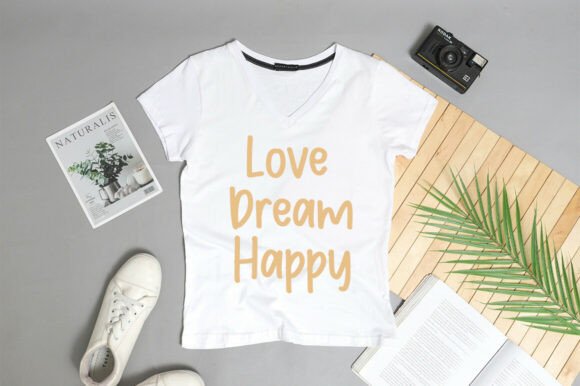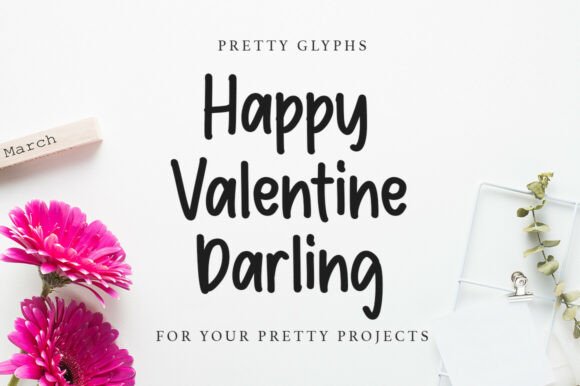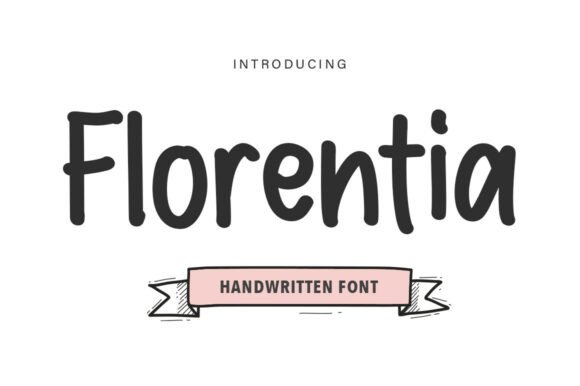
Bringing Warmth and Hospitality to Your Designs with Florentia Font
In the world of typography, few fonts manage to capture the essence of cozy hospitality as beautifully as Florentia. This warm and friendly handwritten font is designed to bring a touch of comfort and approachability to your creative projects, making it an ideal choice for designers and crafters looking to infuse their work with a sense of personality and human warmth.
The Unique Characteristics of Florentia
Florentia’s design is rooted in its softly rounded, medium-weight letterforms that strike a perfect balance between structured design and natural hand-lettering. This balance gives the font its unique personality, making it stand out in a sea of more traditional or digital typefaces. The slightly elongated stems and gentle, conversational rhythm of Florentia add to its charm, creating a sense of movement and fluidity that draws the reader in.
One of the most distinctive features of Florentia is its ability to convey a sense of professional clarity mixed with authentic human warmth. This makes it an extraordinary choice for a wide range of applications, from artisanal product labels and cozy café menus to lifestyle branding and personal greeting cards. With Florentia, every word feels like an inviting, hand-crafted message, designed to make your audience feel welcome and valued.
Applications for Florentia
Florentia’s versatility is one of its strongest assets, making it suitable for a variety of creative projects. Here are some of the ways you can use Florentia to bring a touch of cozy hospitality to your designs:
- Artisanal Product Labels: If you’re creating labels for handmade or artisanal products, Florentia can add a personal touch that sets your products apart. Its warm and friendly appearance can make your products feel more approachable and inviting to potential customers.
- Cozy Café Menus: For café owners or designers working on menu projects, Florentia can help create a welcoming atmosphere. Its conversational rhythm and soft letterforms can make your menu feel like a warm hug, encouraging customers to linger over their coffee and enjoy their experience.
- Lifestyle Branding: If you’re working on a branding project that aims to convey a sense of warmth, comfort, and approachability, Florentia can be an excellent choice. Its unique personality can help your brand stand out and connect with your audience on a more personal level.
- Personal Greeting Cards: For crafters and designers creating personal greeting cards, Florentia can add a touch of handmade charm. Its gentle and inviting appearance makes it perfect for birthday cards, thank-you notes, and other personal messages.
Why Choose Florentia?
With so many fonts available, why choose Florentia for your creative projects? The answer lies in its unique ability to blend professional clarity with authentic human warmth. In a world where digital communication can often feel cold and impersonal, Florentia offers a refreshing alternative. Its warm and friendly appearance can help you connect with your audience on a more personal level, making your designs feel more approachable and inviting.
Moreover, Florentia’s versatility and range of applications make it a valuable addition to any designer’s toolkit. Whether you’re working on a branding project, creating product labels, or designing greeting cards, Florentia can help you achieve your creative vision and bring a touch of cozy hospitality to your designs.
In conclusion, Florentia is a unique and versatile handwritten font that can bring a touch of cozy hospitality to your creative projects. Its softly rounded letterforms, slightly elongated stems, and gentle conversational rhythm make it an extraordinary choice for designers and crafters looking to infuse their work with personality and human warmth. Whether you’re working on artisanal product labels, cozy café menus, lifestyle branding, or personal greeting cards, Florentia can help you create designs that feel inviting, approachable, and authentically human.
So why not give Florentia a try and see how it can elevate your designs? With its unique blend of professional clarity and authentic human warmth, it’s sure to become a favorite in your font collection.